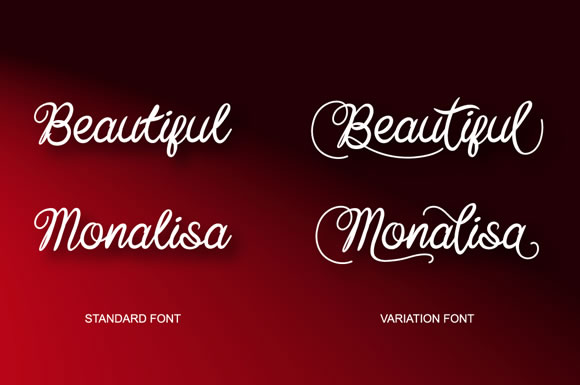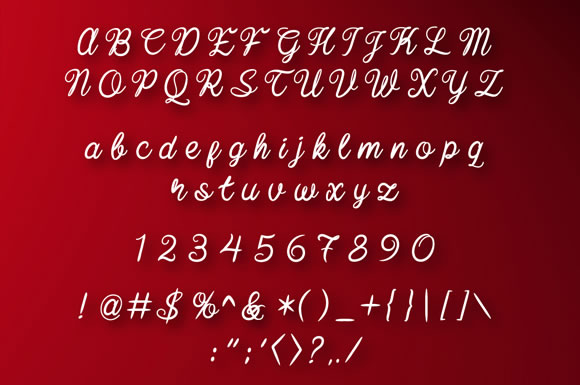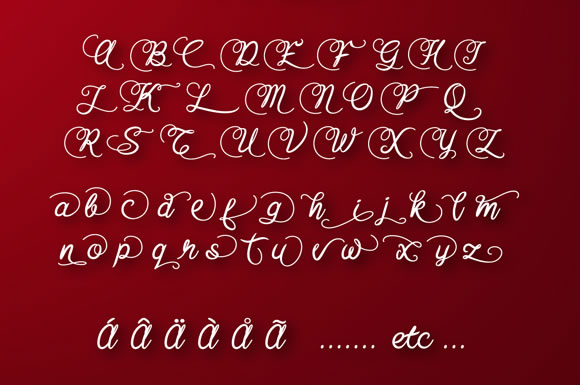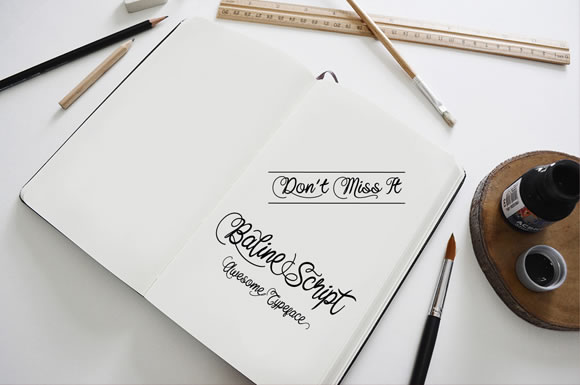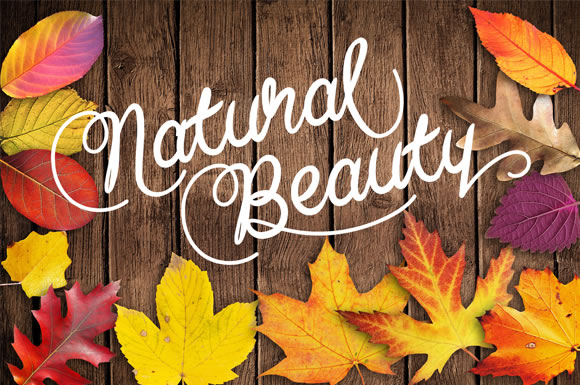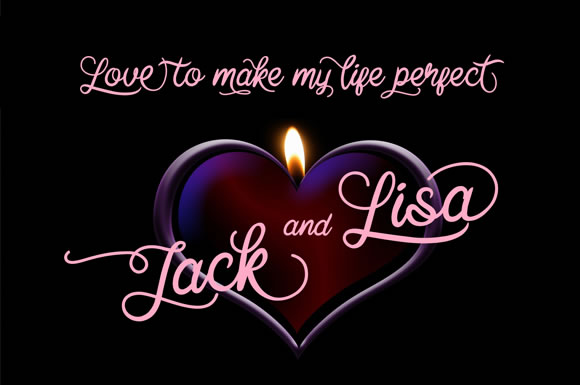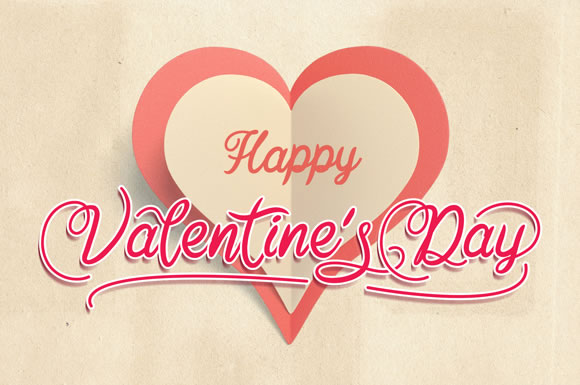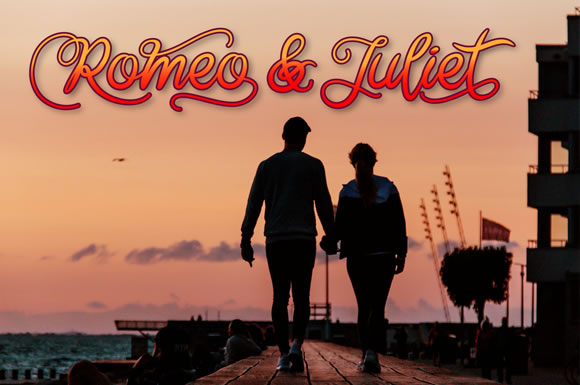
Baline Script Font
About Baline Script Font
Baline Script is a spontaneous decorated font. It has a clean, smooth look and feel. This font features many alternates.